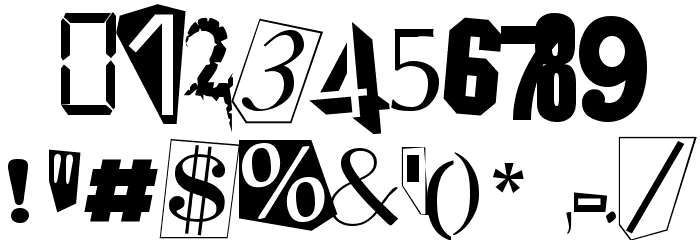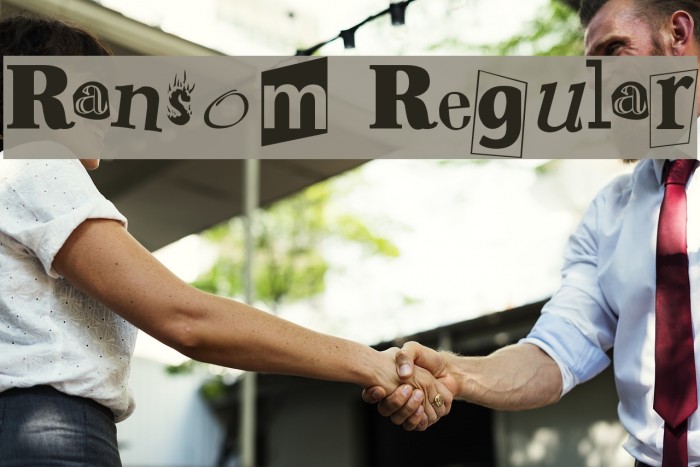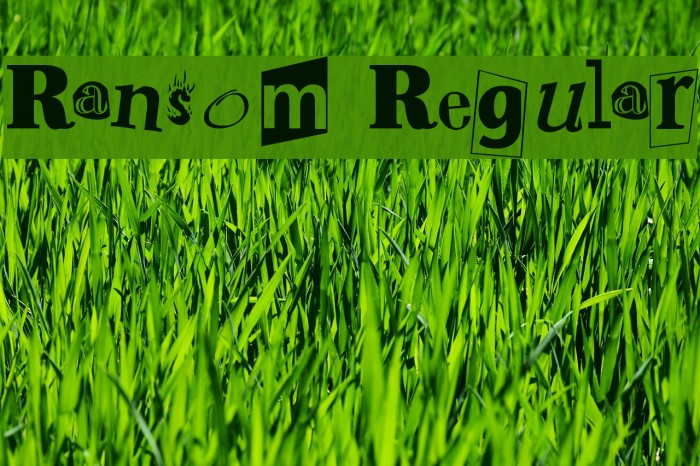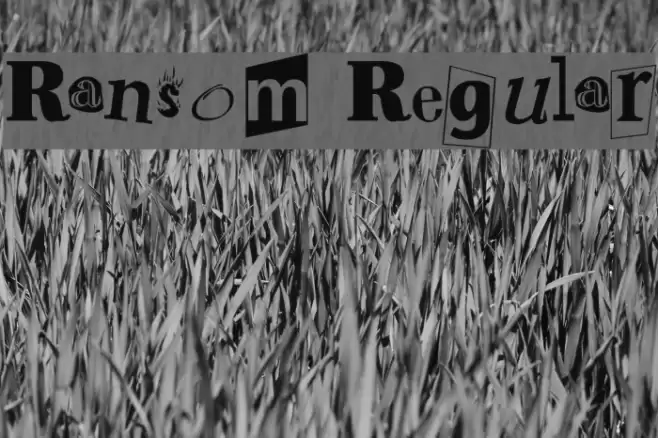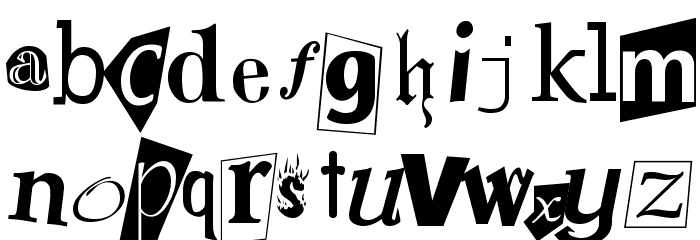
Ransom Regular Font
Ransom Regular Description
This font is a playful and eclectic mix of various styles, reminiscent of letters cut from magazines or newspapers to create a ransom note. Each character is unique, with varying weights, widths, and decorative elements. The uppercase and lowercase letters, as well as numbers and special characters, all exhibit a distinct and mismatched appearance, contributing to a chaotic yet artistic vibe. The font's design is bold and eye-catching, making it suitable for projects that require a strong visual impact. Its irregularity and diversity in character shapes make it stand out, offering a sense of creativity and unconventional style.
A playful, eclectic font mimicking a ransom note with varied styles and bold design from Uncategorized fonts.
• Proposed Projects: Ideal for creative projects such as posters, album covers, or any design needing a bold, artistic statement.
• Character Spacing: Varied
• Contrast: High
• Overall Style: Decorative
• Use Case: Headlines, Posters, Artistic Designs